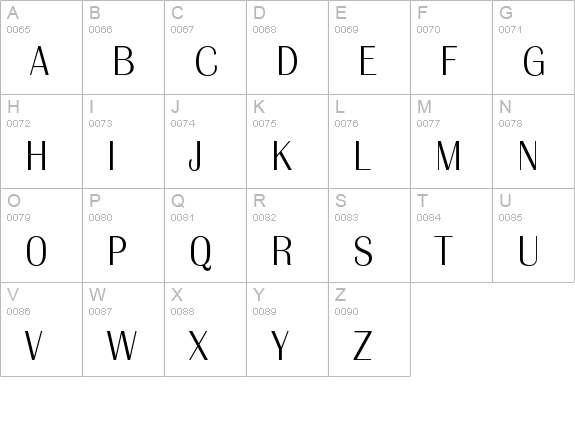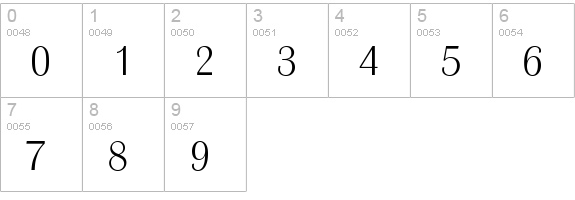
Grenoble-Xlight Font Details
Grenoble-Xlight is a sleek and modern font that exudes elegance and sophistication. Its delicate strokes and clean lines make it perfect for a wide range of design projects, from branding to editorial layouts. This versatile typeface is ideal for creating a polished and professional look. What sets Grenoble-Xlight apart is not only its striking beauty, but also the fact that it is completely free to download. That's right, you can get your hands on this stunning font at no cost at all! Simply head over to FontsMarket.com and start using Grenoble-Xlight in your projects today. Whether you're working on a website, a logo, a brochure, or any other design project, Grenoble-Xlight is sure to elevate your work to the next level. Don't miss out on this amazing opportunity to enhance your designs with this exceptional font. Download Grenoble-Xlight now and let your creativity shine!